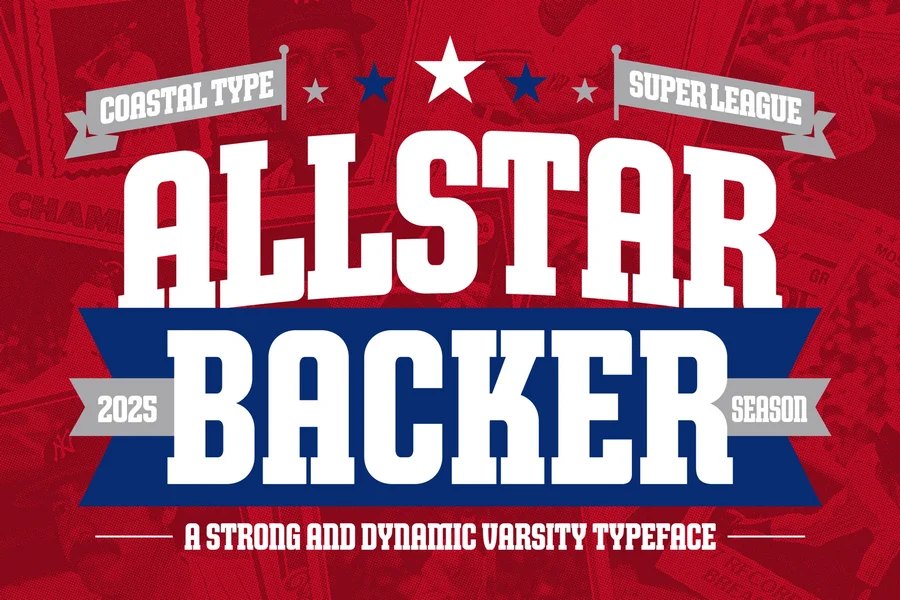
Allstar Backer – A Strong and Dynamic Varsity Typeface
Allstar Backer is a powerhouse varsity display font that channels the raw energy of the ballpark, the spirit of competition, and the timeless appeal of classic sports lettering. Designed with bold, confident letterforms and rounded angles, this typeface is perfect for posters, team logos, sports theme, event branding, and anything that demands attention.
Inspired by the traditions of American collegiate and pro leagues, Allstar Backer offers:
🏈 Stadium-Sized Impact – Thick strokes and solid serifs give your words a commanding presence.
🎯 All-Caps Punch – Built for titles, headlines, and everything that needs to shout “WINNER!”
🎨 Retro Flair, Modern Edge – Combines vintage varsity aesthetics with a clean digital finish.
📣 Perfect for Posters and Banners – Instantly evokes team spirit and athletic pride.
Whether you’re designing for a championship season or building a brand with boldness, Allstar Backer is your MVP.